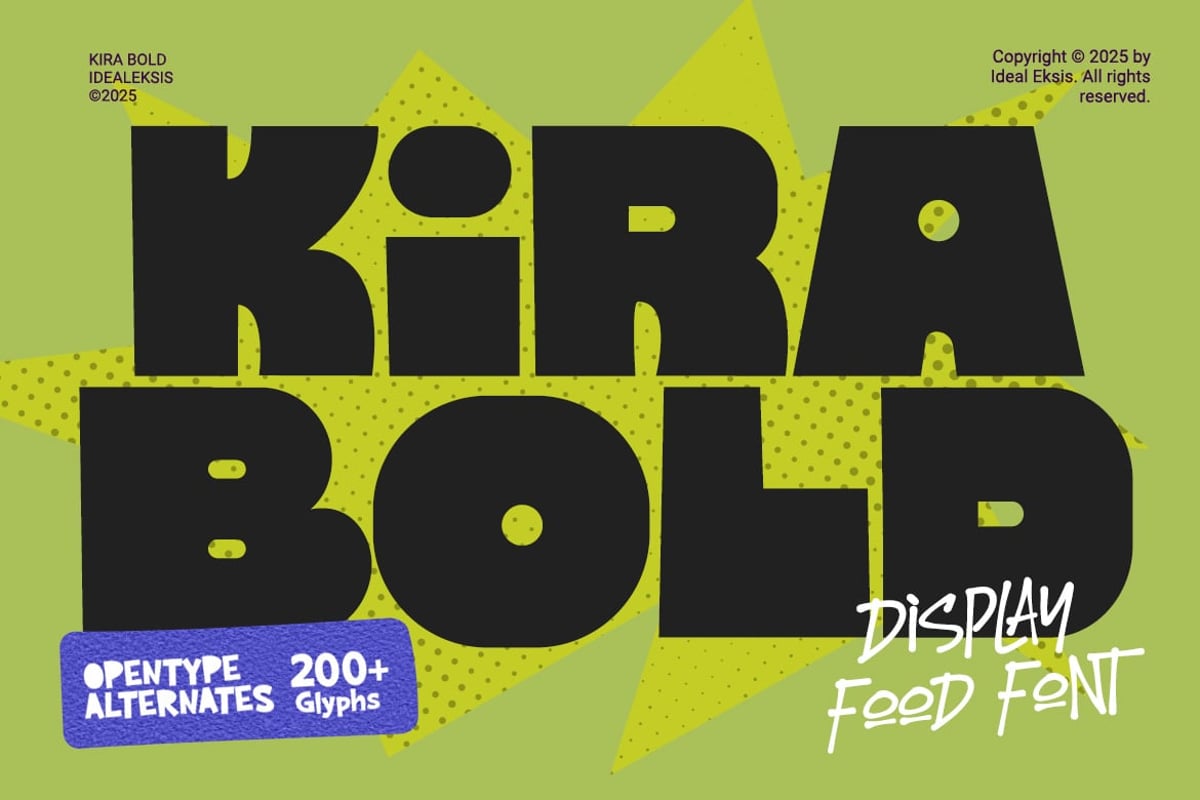
Kira Bold - Food Font
Make your food brand pop with KIRA BOLD's chunky, playful personality and eye-catching retro-modern style.
This heavyweight sans serif features bold geometric shapes with soft rounded cuts that create a friendly and energetic character. Its solid construction delivers excellent readability while maintaining a distinctive and memorable presence that's perfect for standing out in crowded markets.
The typeface's heavy structure and geometric flow make it ideal for impactful titles, eye-catching posters, memorable branding, product packaging, children's illustrations, merchandise designs, and any creative project demanding fun visual power.
- Uppercase (All Caps)
- Numerals
- Alternate characters
- Multilingual Support
Perfect Applications:
- Bakery and café branding
- Food and beverage logos
- Restaurant menus and signage
- Coffee shop and donut shop designs
- Food packaging and labels
- Social media food promotions
- Kitchen-themed posters and prints
- Culinary blogs and recipe graphics